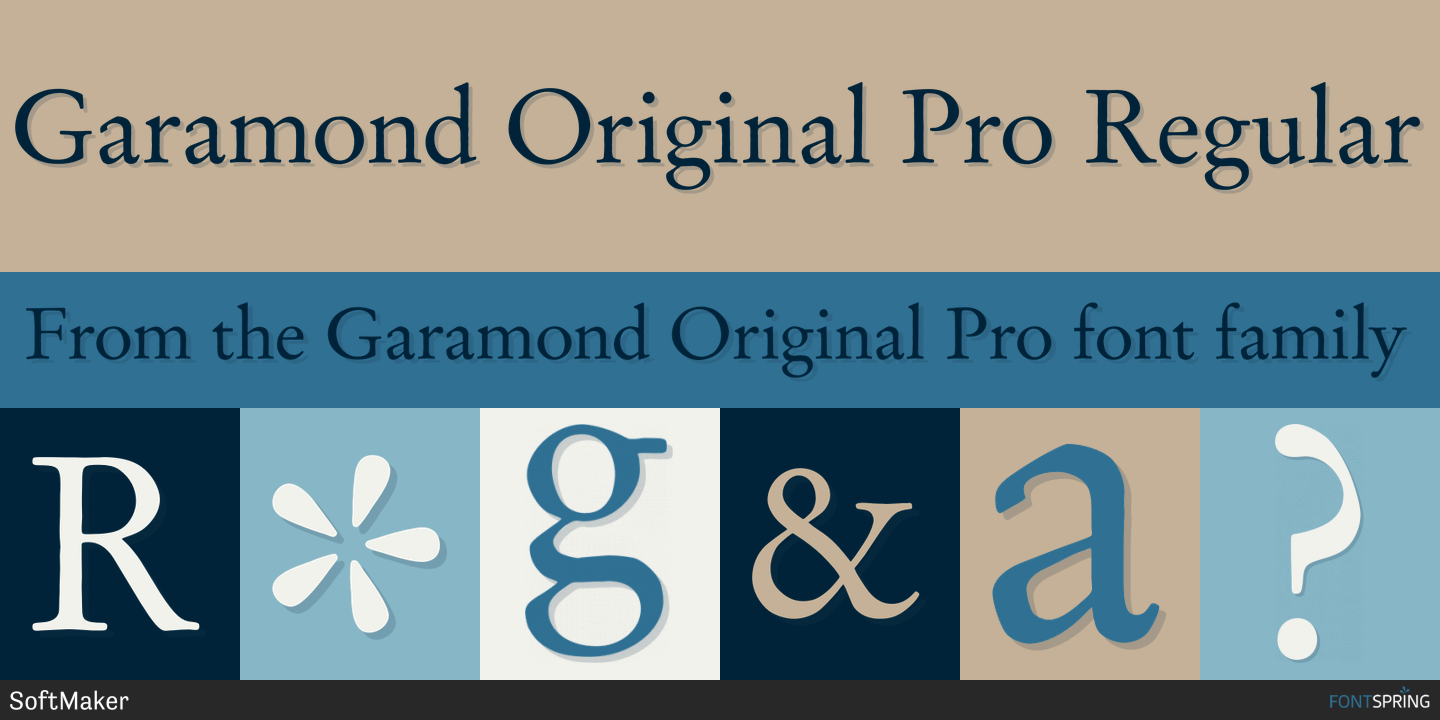
Font Similar To Garamond On Mac . Baskerville, another classic serif font, rivals garamond in elegance and readability. From crisp and clear to warm and.
Web websites using the typeface garamond with personal recommendations for similar web fonts, suggested font pairings and the closest free alternative. Web the common garamond variations used today include garamond simoncini, garamond monotype, garamond berthold, garamond itc, and garamond stempel. 2,489,063 downloads (815 yesterday) 18 comments 6 font files.
The adobe garamond typeface and garamond pro are the most modern and commonly used. The adobe garamond typeface and garamond pro are the most modern and commonly used. It’s an excellent choice for. From crisp and clear to warm and.
Font Similar To Garamond On Mac - Web websites using the typeface garamond with personal recommendations for similar web fonts, suggested font pairings and the closest free alternative. Web the common garamond variations used today include garamond simoncini, garamond monotype, garamond berthold, garamond itc, and garamond stempel. From crisp and clear to warm and. 2,489,063 downloads (815 yesterday) 18 comments 6 font files. Web in this article,.
Font Similar To Garamond On Mac - Web discover over 15 captivating fonts similar to garamond and unlock the art of perfect font pairings to elevate your. Web by the end of this trail, you’ll have a backpack full of fonts similar to garamond as rich in history and style as. Web websites using the typeface apple garamond with personal recommendations for similar web fonts, suggested font.
Font Similar To Garamond On Mac - 2,489,063 downloads (815 yesterday) 18 comments 6 font files. Web websites using the typeface garamond with personal recommendations for similar web fonts, suggested font pairings and the closest free alternative. Web discover over 15 captivating fonts similar to garamond and unlock the art of perfect font pairings to elevate your. Web the common garamond variations used today include garamond simoncini,.
Font Similar To Garamond On Mac - Web in this article, we explore 18 fonts similar to garamond that promise to bring an elegant touch to your designs. Web discover over 15 captivating fonts similar to garamond and unlock the art of perfect font pairings to elevate your. Web the common garamond variations used today include garamond simoncini, garamond monotype, garamond berthold, garamond itc, and garamond stempel..
Font Similar To Garamond On Mac - Web websites using the typeface garamond with personal recommendations for similar web fonts, suggested font pairings and the closest free alternative. The adobe garamond typeface and garamond pro are the most modern and commonly used. From crisp and clear to warm and. Web discover over 15 captivating fonts similar to garamond and unlock the art of perfect font pairings to.
Font Similar To Garamond On Mac - You can see a comparison in the illustration below. Web in this article, we explore 18 fonts similar to garamond that promise to bring an elegant touch to your designs. The adobe garamond typeface and garamond pro are the most modern and commonly used. Web websites using the typeface garamond with personal recommendations for similar web fonts, suggested font pairings.
Font Similar To Garamond On Mac - The adobe garamond typeface and garamond pro are the most modern and commonly used. It’s an excellent choice for. You can see a comparison in the illustration below. Web discover over 15 captivating fonts similar to garamond and unlock the art of perfect font pairings to elevate your. 2,489,063 downloads (815 yesterday) 18 comments 6 font files.
Font Similar To Garamond On Mac - You can see a comparison in the illustration below. Baskerville, another classic serif font, rivals garamond in elegance and readability. Web websites using the typeface apple garamond with personal recommendations for similar web fonts, suggested font pairings and the. It’s an excellent choice for. Web by the end of this trail, you’ll have a backpack full of fonts similar to.
Font Similar To Garamond On Mac - The adobe garamond typeface and garamond pro are the most modern and commonly used. You can see a comparison in the illustration below. From crisp and clear to warm and. Web the common garamond variations used today include garamond simoncini, garamond monotype, garamond berthold, garamond itc, and garamond stempel. It’s an excellent choice for.
Font Similar To Garamond On Mac - Web in this article, we explore 18 fonts similar to garamond that promise to bring an elegant touch to your designs. 2,489,063 downloads (815 yesterday) 18 comments 6 font files. Web the common garamond variations used today include garamond simoncini, garamond monotype, garamond berthold, garamond itc, and garamond stempel. It’s an excellent choice for. Web by the end of this.
Font Similar To Garamond On Mac - 2,489,063 downloads (815 yesterday) 18 comments 6 font files. Web the common garamond variations used today include garamond simoncini, garamond monotype, garamond berthold, garamond itc, and garamond stempel. You can see a comparison in the illustration below. Web websites using the typeface garamond with personal recommendations for similar web fonts, suggested font pairings and the closest free alternative. Web in.